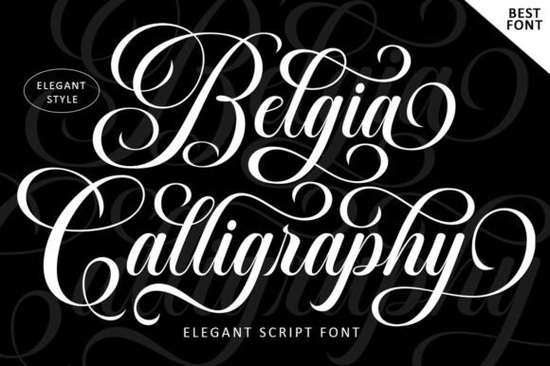
If you're looking for a script font that feels both timeless and fresh something that works as well on a wedding invitation as it does on a boutique skincare label you’ll likely find the Belgia Calligraphy Font fits naturally into your workflow. It’s not overly ornate, but it carries quiet confidence: smooth letter connections, subtle character variations, and a balanced rhythm that keeps text legible even at smaller sizes. Designed with care for real-world use, it avoids the “too delicate to print” trap many calligraphy fonts fall into.
What makes Belgia work so well for printed and digital projects?
First, its structure is intentionally clean not minimalist, but purposefully uncluttered. The lowercase letters flow without excessive swirls, and uppercase forms hold presence without shouting. That means it scales reliably: from a 12-pt caption in a magazine layout to a 72-pt headline on a greeting card. Because it includes PUA encoding, you can access alternate characters, ligatures, and decorative swashes directly from your glyph panel in design apps like Illustrator or Affinity Designer no need for extra plugins or workarounds.
It also reads well in longer passages. Unlike some script fonts that blur together after a few words, Belgia maintains clarity thanks to consistent spacing and thoughtful contrast between thick and thin strokes. That’s why designers working on novels, stationery collections, or even packaging for artisanal goods often choose it when they need elegance and readability.
Where do people actually use this font?
- Wedding stationery especially for couples who want something refined but not fussy
- Small-batch product labels (think candles, bath salts, or handmade chocolates)
- Restaurant menus where tone matters as much as content
- Branding for beauty or fashion micro-brands logos, social bios, and email headers
- Print-on-demand items like mugs, tote bags, or art prints where script adds warmth without sacrificing professionalism
If you’ve used Wedding Nayla, you’ll notice Belgia has a lighter touch less dramatic flourishes, more breathing room. For those who prefer bolder energy, Andalusia offers richer contrast and stronger personality. And if your project leans playful or hand-drawn, Children’s Scribbles gives that relaxed, sketchbook feel. Meanwhile, Abigail sits somewhere between Belgia and Andalusia elegant but with a slightly warmer, friendlier slant.
How does it compare to other elegant script fonts?
Belgia doesn’t try to be everything. It’s not the most decorative, nor the most condensed, nor the most experimental. Instead, it focuses on doing one thing well: offering reliable, feminine elegance across formats and contexts. That makes it especially useful for small businesses and solo designers who need consistency across multiple touchpoints say, a logo, business card, website banner, and Instagram story all using the same voice.
For crafters printing custom cards or planners, the font’s OpenType features mean you can quickly swap in a swash capital for a special word (“Forever,” “Love,” “Est. 2024”) without switching fonts. Print-on-demand sellers appreciate how cleanly it renders on fabric or ceramic surfaces no fine lines that risk disappearing during production.
One thing to keep in mind: while Belgia works beautifully in all-caps settings for short headlines, it’s not designed for extended all-caps body text. Like most true script fonts, it shines best in mixed-case settings where natural letter connections support readability.
Where can you preview or test it before buying?
You can see live previews and download a free trial version directly on the Belgia Calligraphy Font page on Creative Fabrica. There, you’ll also find user-submitted mockups showing how others have applied it from foil-stamped wedding suites to chalkboard-style café signage.
If you’re building a brand identity system, consider pairing Belgia with a simple sans-serif (like Montserrat or Inter) for body copy. That combination gives you contrast without competition elegance up top, clarity below.
Quick checklist before you use Belgia in your next project